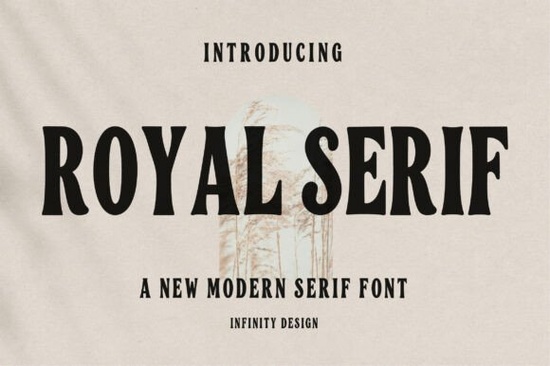
If you have been searching for a typeface that feels both refined and approachable, the Royal Serif Font might be exactly what you need. This modern serif alphabet was originally designed for embroidery machines, but its clean letterforms and soft curves work just as well for digital design, print, and branding. It strikes a rare balance between structured sophistication and organic warmth, which is why it has become a go-to for small businesses and creative entrepreneurs who want that boutique look without hiring a professional typesetter.
What makes Royal Serif Font different from other serif typefaces?
Most serif fonts lean heavily into tradition or trend. Royal Serif Font manages to sit comfortably in the middle. The letter shapes are crisp and readable, yet there is a gentle, rounded quality that keeps the overall look from feeling stiff or formal. This makes it a strong choice for personalization, especially if you are embroidering names, monograms, or short phrases onto items like sweatshirts, tote bags, or linen napkins. The satin stitching comes out dense and clean because the font was built with digitizing in mind, which means fewer thread breaks and less manual cleanup.
If you compare it to other serif options in the same category, like Honey Mango Font or Polyera Font, you will notice Royal Serif has a more understated elegance. It does not try to be flashy. It simply makes text look intentional and premium.
Can this font work for digital projects, not just embroidery?
For designers who work across both digital and physical products, this kind of versatility is a real time-saver. You can design a logo in Canva, then send the same font file to your embroidery machine for a matching stitched version.
What kind of projects benefit most from a serif embroidery alphabet?
Based on feedback from sellers and makers, the most popular applications include:
- Custom sweatshirts and hoodies – a single name or word in Royal Serif Font instantly upgrades a blank garment.
- Pocket monograms – the balanced proportions work perfectly in small spaces.
- Personalized tote bags – especially for boutique gift shops and farmer's market stalls.
- Modern home linens – think tea towels, napkins, or throw pillow covers with a subtle monogram.
- Brand logos – for product-based businesses that want a handmade but polished identity.
- Custom gifts – baby blankets, wedding favors, anniversary pieces.
If you often work with fabric-based projects, pairing Royal Serif Font with Mosswick Font can give you a nice contrast for secondary text or taglines.
Is Royal Serif Font beginner-friendly for embroidery?
Yes. One of the biggest frustrations with embroidery fonts is poor digitizing that leads to gaps, uneven stitches, or pull distortion. Royal Serif Font is designed to avoid those problems. The letterforms include proper underlay and are spaced to accommodate fabric stretch. Even if you are relatively new to machine embroidery, you should get consistent results on cotton, denim, fleece, and linen.
How does this font compare to other serif options in Creative Fabrica's library?
Creative Fabrica has a broad selection of serif fonts, but they all serve slightly different purposes. Selora Font leans more decorative with its swashes and flourishes, making it ideal for invitations and ornate designs. Royal Serif Font is more restrained, which gives you greater flexibility across different project types. If you need a text-heavy design where readability matters, Royal Serif is the stronger choice. For accent text or headlines with extra flair, Selora might be a better pairing.
You can think of Royal Serif as your reliable everyday serif that still manages to look special. It does not rely on trendy details that will feel dated next season.
Practical tips for getting the best results with Royal Serif Font
Here is a short checklist to keep in mind whether you are stitching or designing:
- Pair with a simpler sans-serif for secondary text. Royal Serif Font already carries visual weight, so a clean companion keeps the layout balanced.